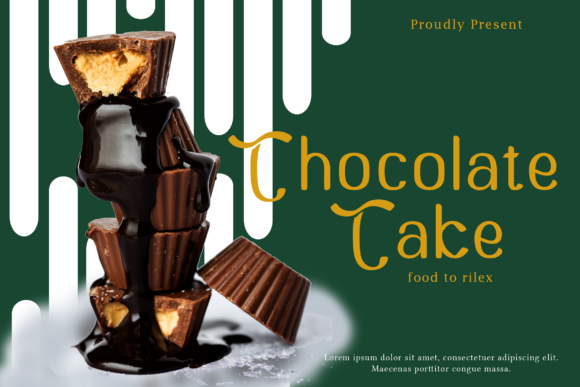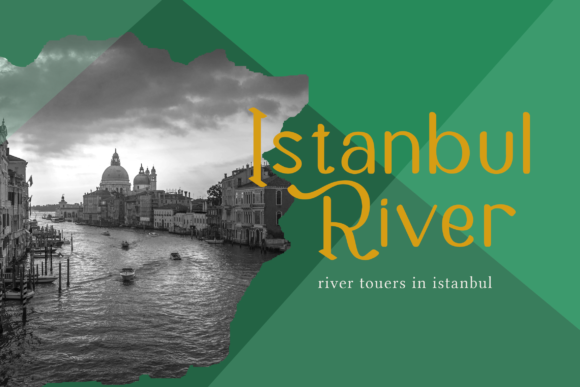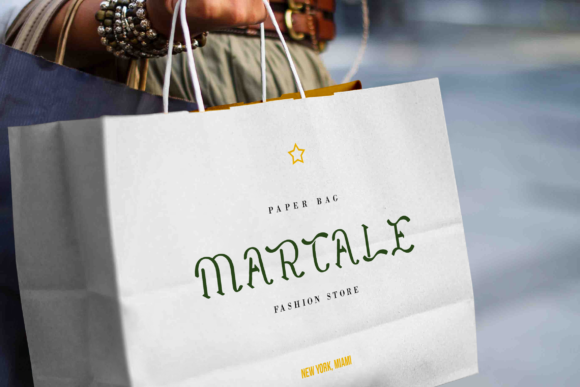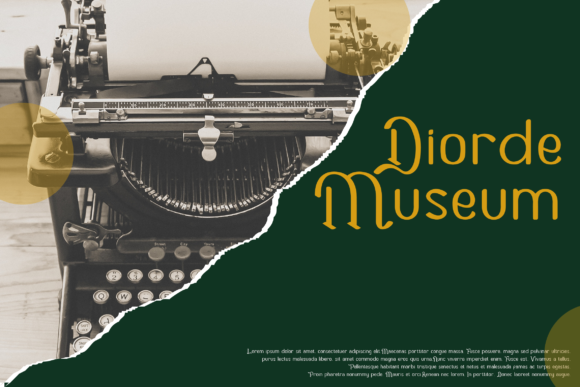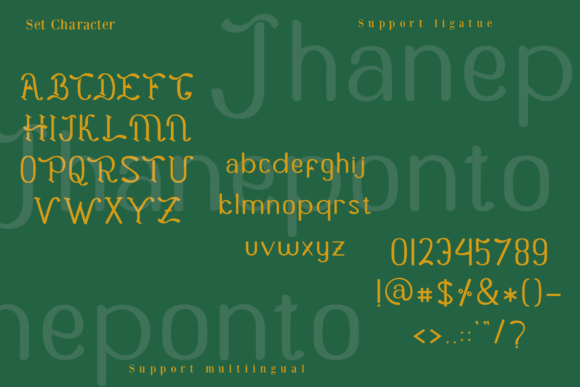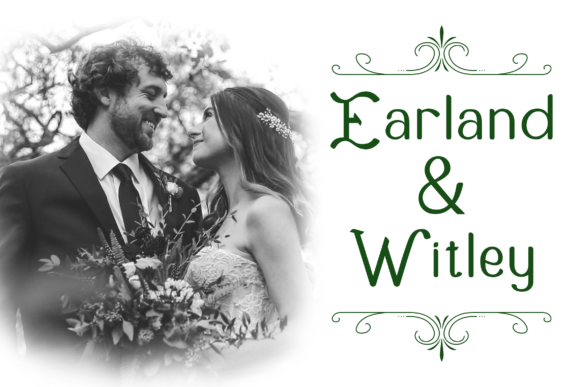
Introduction to Jhaneponto Font Font
Fonts play a crucial role in design, and the Jhaneponto Font font is a typeface that brings both character and versatility to any project. Whether you’re working on a branding project, a website, or a print design, the Jhaneponto Font font offers a unique style that can elevate your work.
Jhaneponto is a display font with a hint of a modern blackletter style.
Jhaneponto font is suitable to use for logos, titles, landing pages, leaflets, and others With its shape and uniqueness, you will definitely like this font.
Key Features of Jhaneponto Font Font
Why Choose Jhaneponto Font Font?
The Jhaneponto Font font is more than just a typeface – it’s a design tool that helps you communicate your message with style and clarity. Its unique character set and versatile design make it suitable for a wide range of applications, from elegant invitations to bold headlines.
With its carefully crafted letterforms and balanced proportions, the Jhaneponto Font font ensures readability and visual appeal across all mediums.
What makes Jhaneponto Font font special?
The Jhaneponto Font font stands out with its unique design, exceptional readability, and versatility across various design applications.